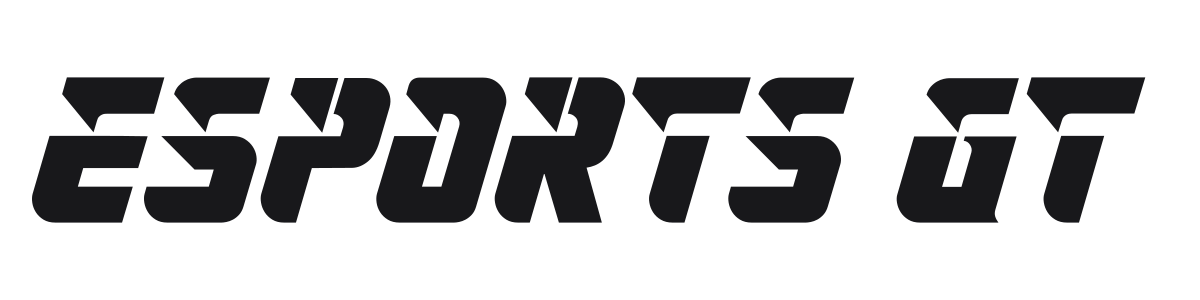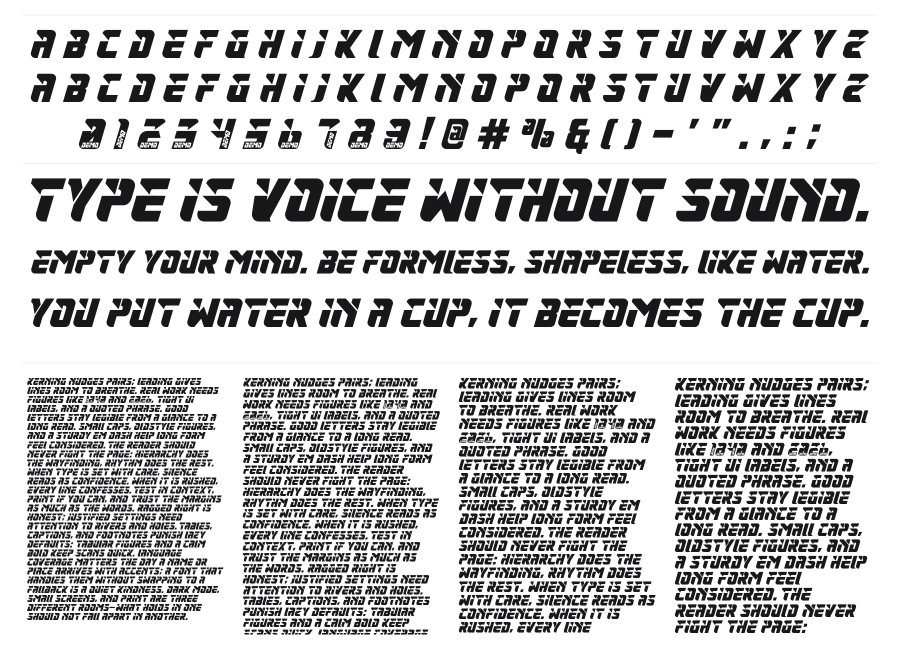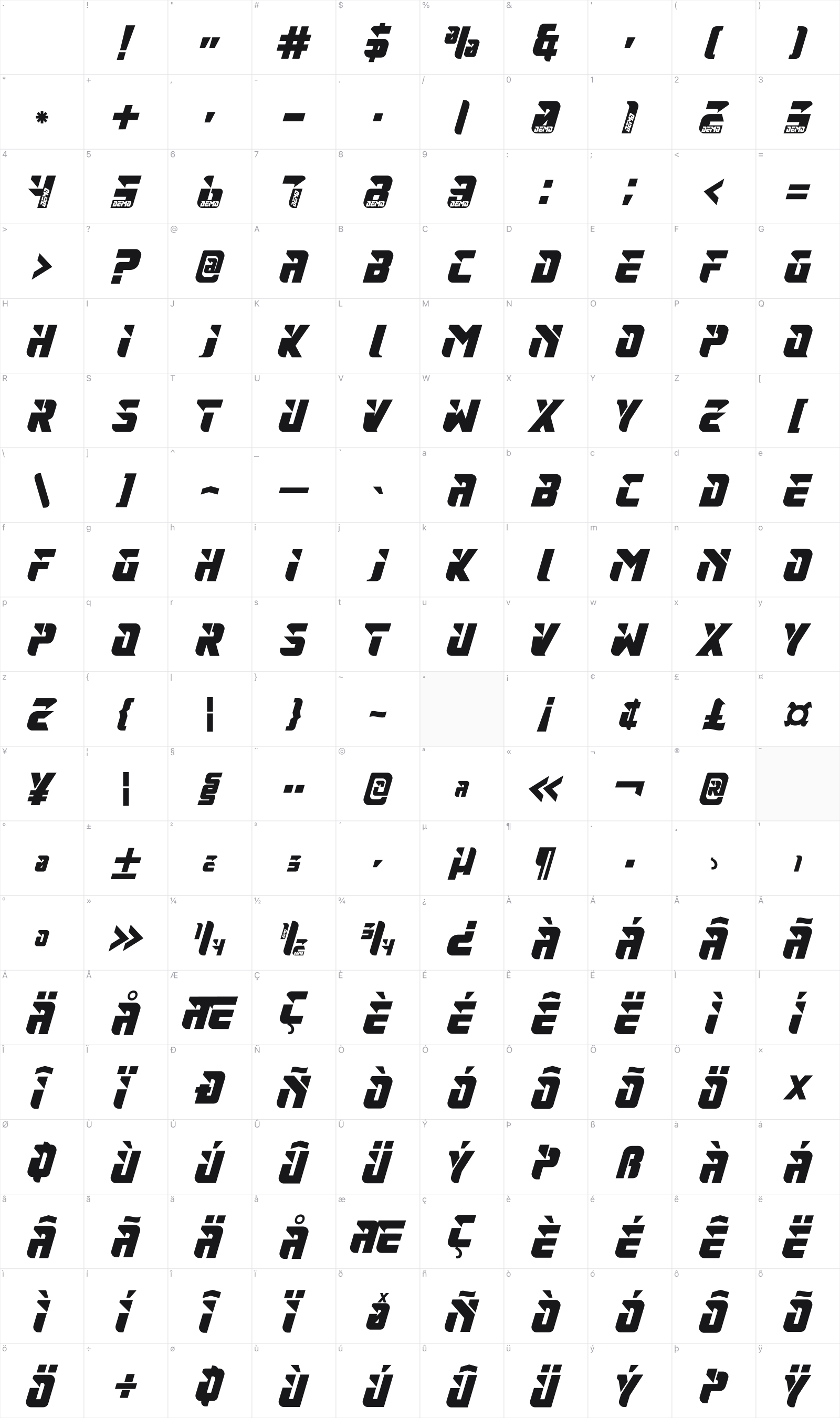
Esports GT
Esports GT is a heavy condensed italic display font built from angular, notched geometric strokes that give every character a fragmented, high-impact structure. The aggressive forward slant and modular construction tap directly into the visual language of competitive gaming and sports team identity. It carries the raw energy of late-1990s sports branding pushed into a contemporary context.